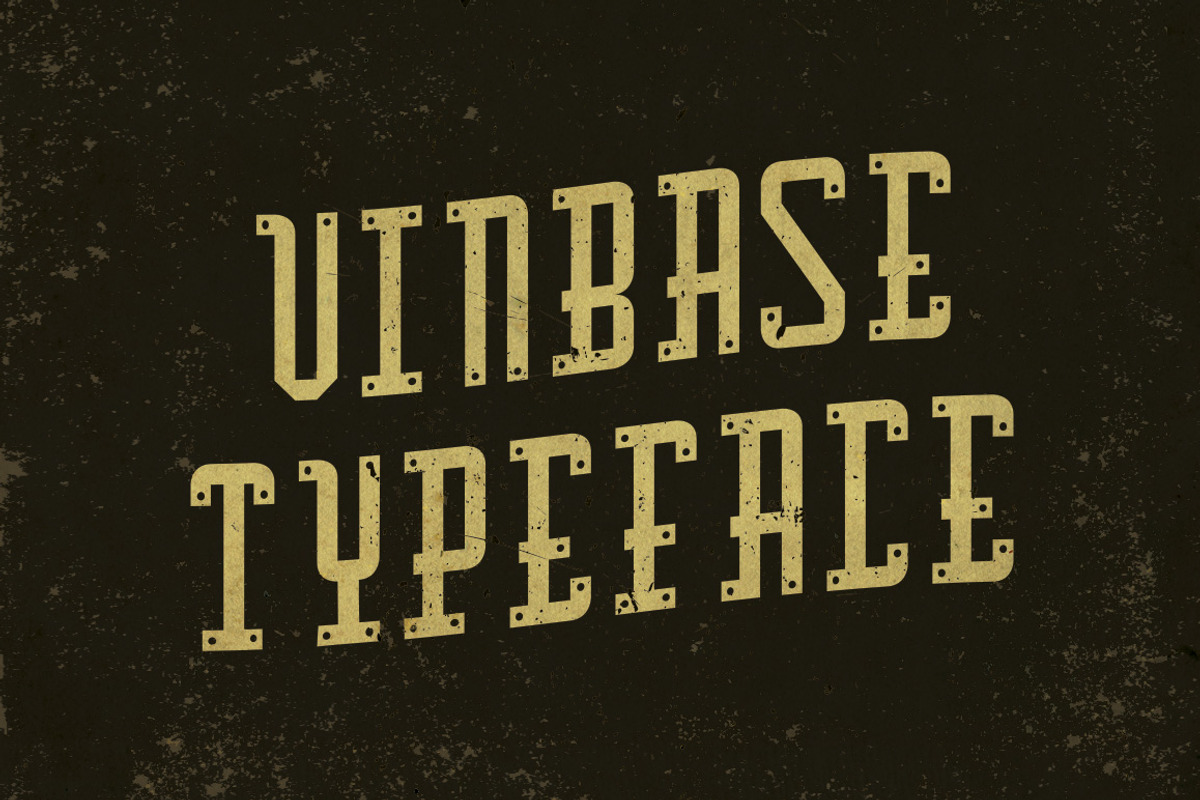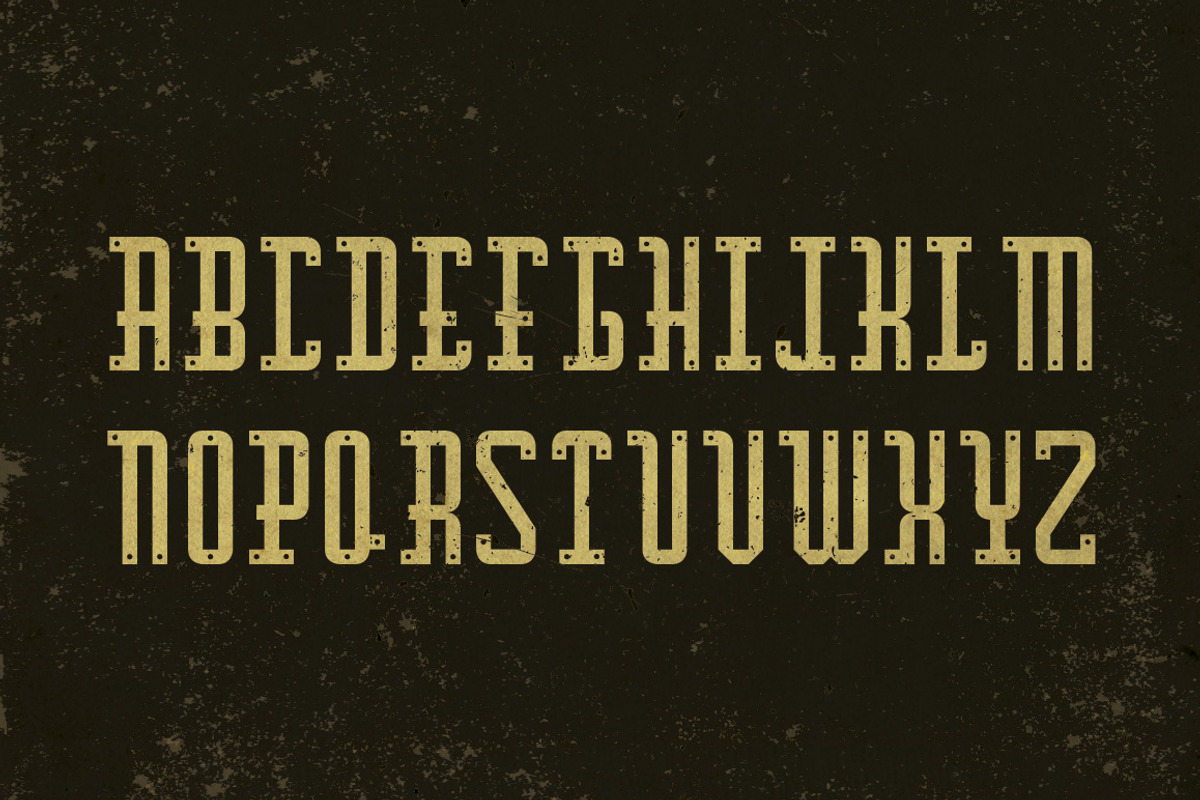
Vinbase Typeface
Vinbase Typeface by Christian Siles is a font selected for branding, posters, packaging, typography.
- Vinbase it's an uppercase solid font which you can use for you personal and commercial projects.
Vinbase Typeface by Christian Siles fits naturally into Branding, posters, packaging, typography.